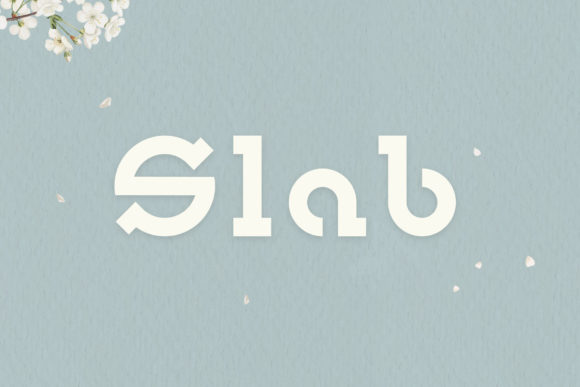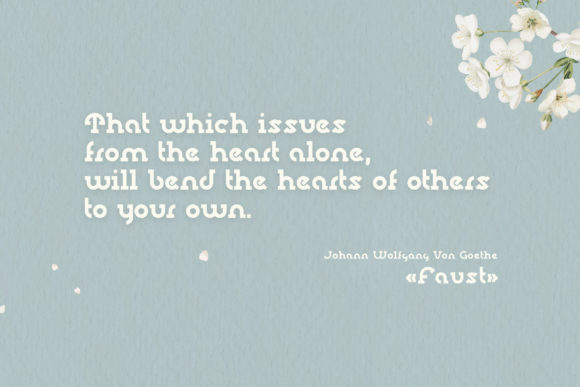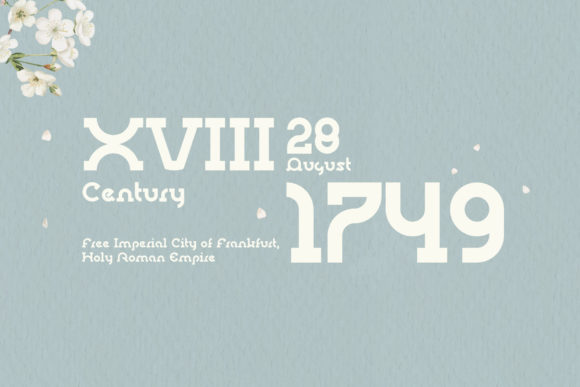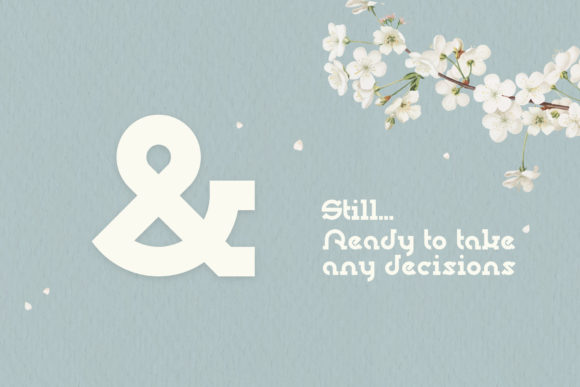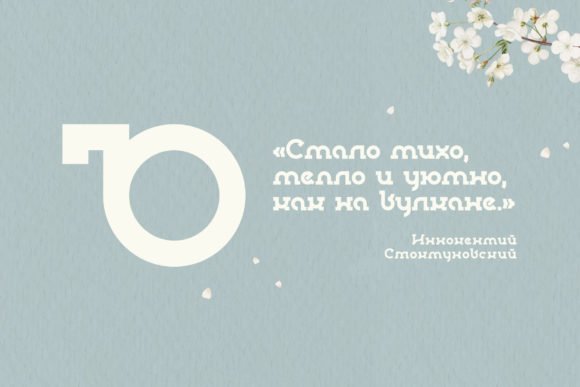
Ring
Ring: A Cool and Modern Slab Serif Font
Ring is a cool and modern slab serif font that is suitable for a wide range of creative design projects. Whether you’re working on logotypes, headlines, corporate identity, brand identity, or projects in the apparel industry, this font adds a stylish touch. It’s also perfect for posters, music, movies, games, magazines, books, comics, cartoons, YouTube, Instagram, websites, and more.
Key Features of Ring
• Modern Design: Offers a sleek and contemporary look suitable for various applications.
• Slab Serif Structure: Features thick, rectangular serifs typical of slab serif fonts.
• Versatile Application: Ideal for both print and digital media projects.
• Impactful Presence: Designed to make designs stand out with its unique aesthetic.
Ideal Uses for Ring
Ring’s unique characteristics make it particularly well-suited for:
When incorporating Ring into your designs, consider these tips:
• Use for headlines or short blocks of text to showcase its modern style.
• Utilize its versatility across various creative projects to enhance visual appeal.
Ring is an excellent choice for designers looking to add a modern slab serif font to their typographic toolkit. Its ability to bring style and versatility to various design projects makes it stand out in the world of typography. Whether you’re working on logos, creating layouts for magazines, or developing content that requires a touch of sophistication, Ring offers the perfect blend of style and functionality.
Furthermore, Ring’s unique design allows it to shine in various contexts. From vintage-inspired designs with a modern twist to more contemporary layouts that need a touch of uniqueness, this font can elevate your projects. Its striking yet functional style works particularly well in designs that require a thoughtful and engaging mood.
In conclusion, Ring is a font that truly captures the essence of creativity and impact in typography. Its ability to work well in both minimalist projects and more elaborate layouts showcases its flexibility. For those looking to add a touch of unique charm to their work, Ring can even enhance themed creations with its distinctive style. It’s the perfect choice for designers seeking to make a strong, stylish impact across a wide range of creative projects.